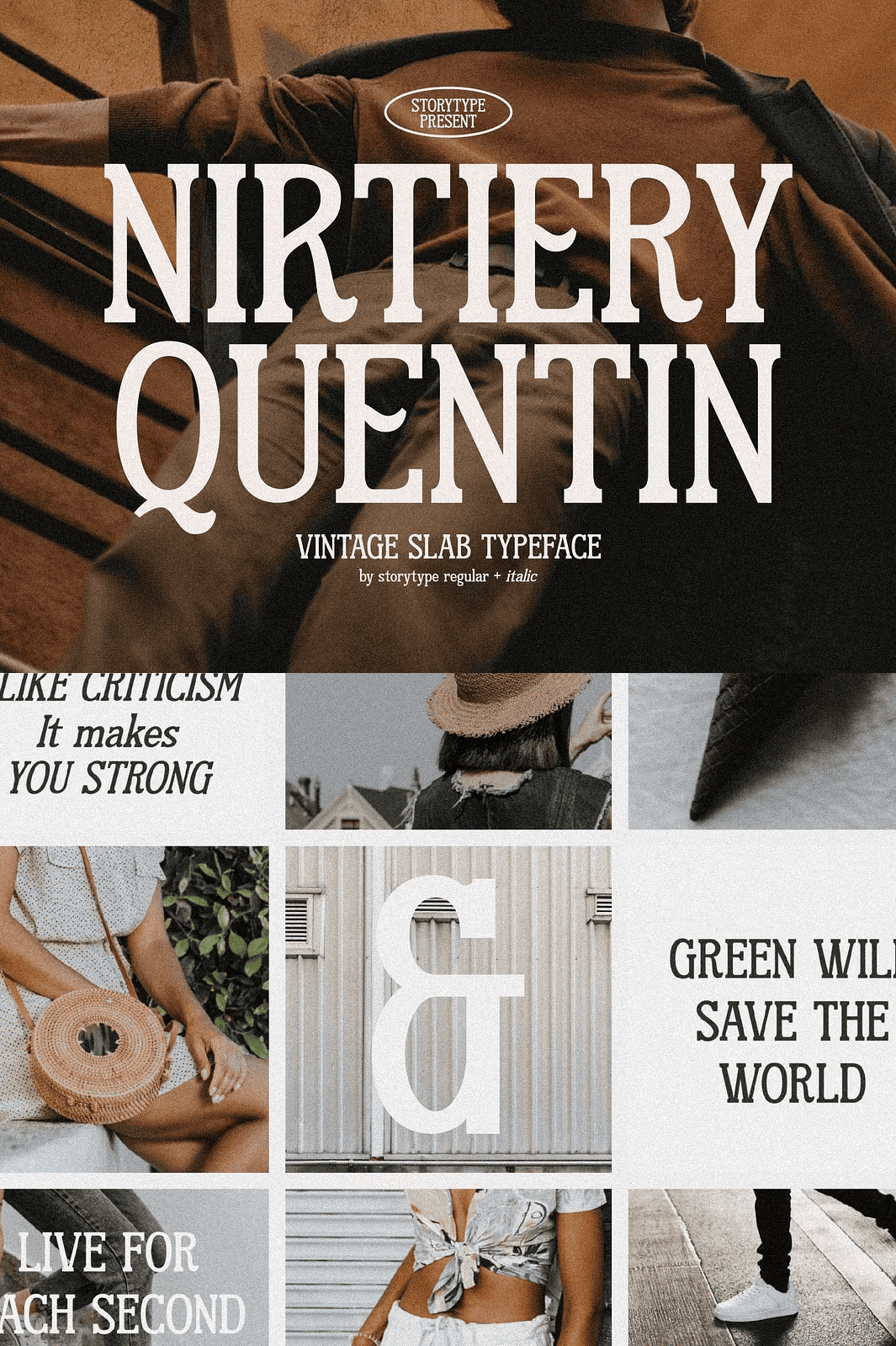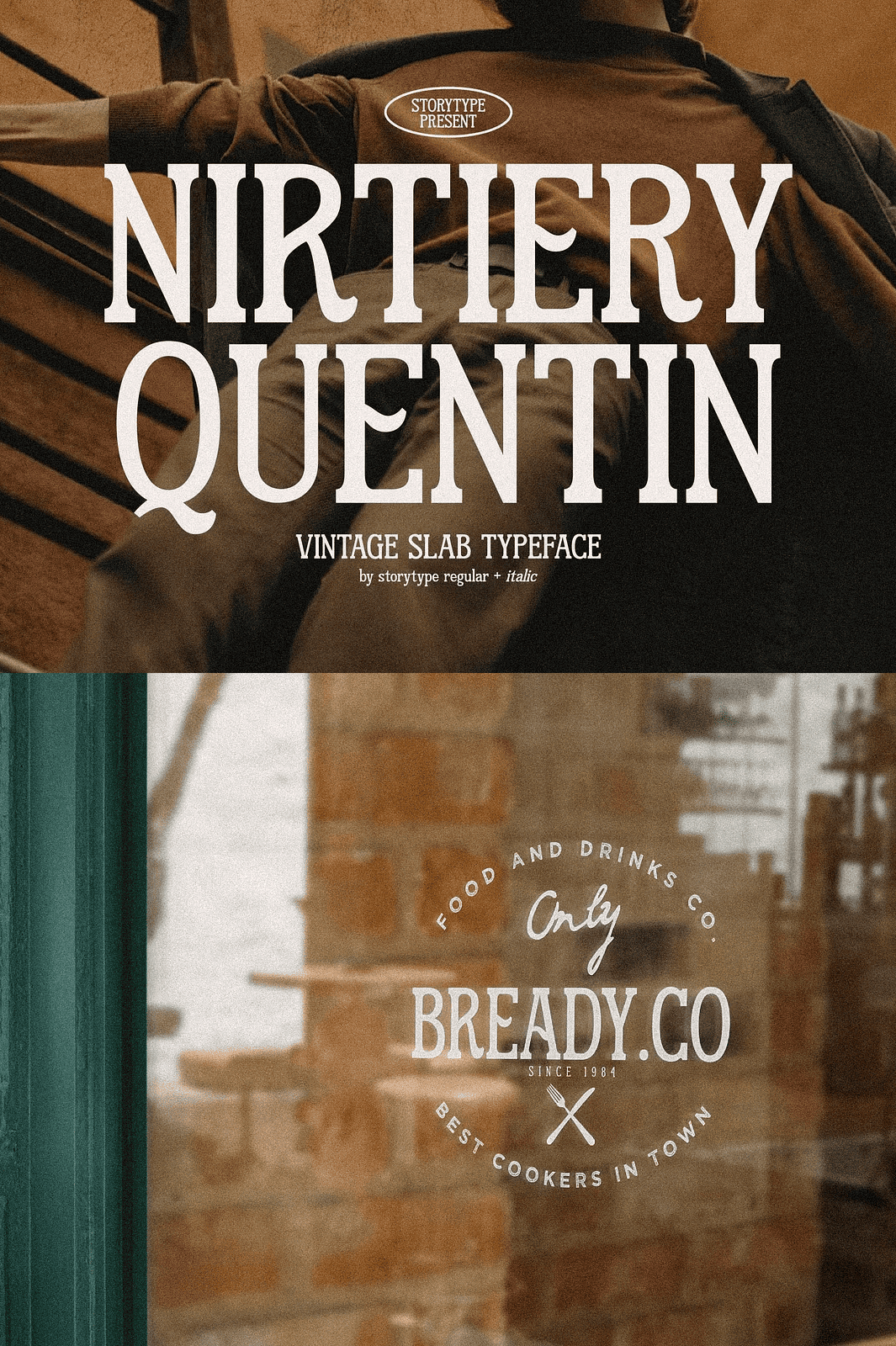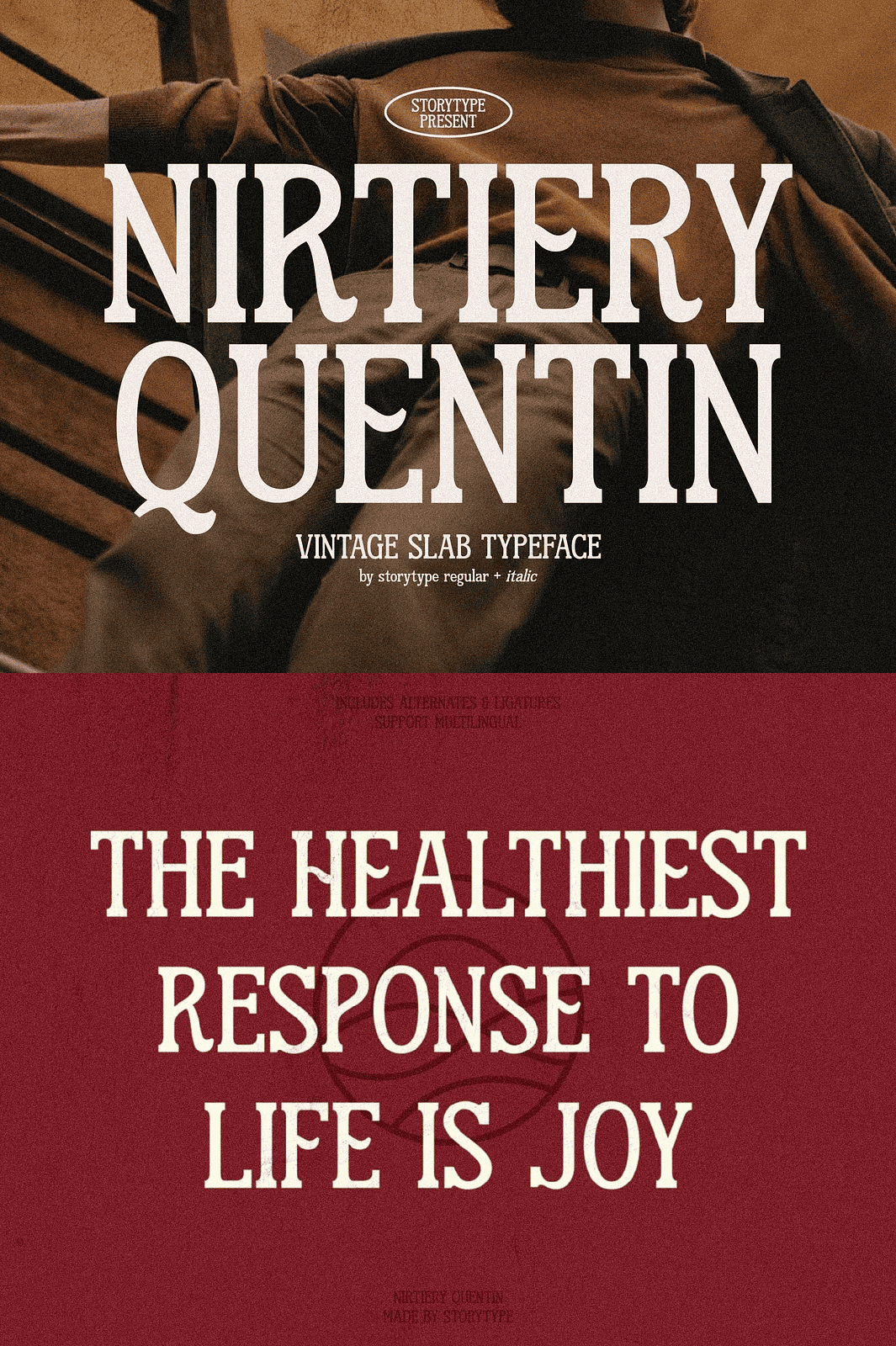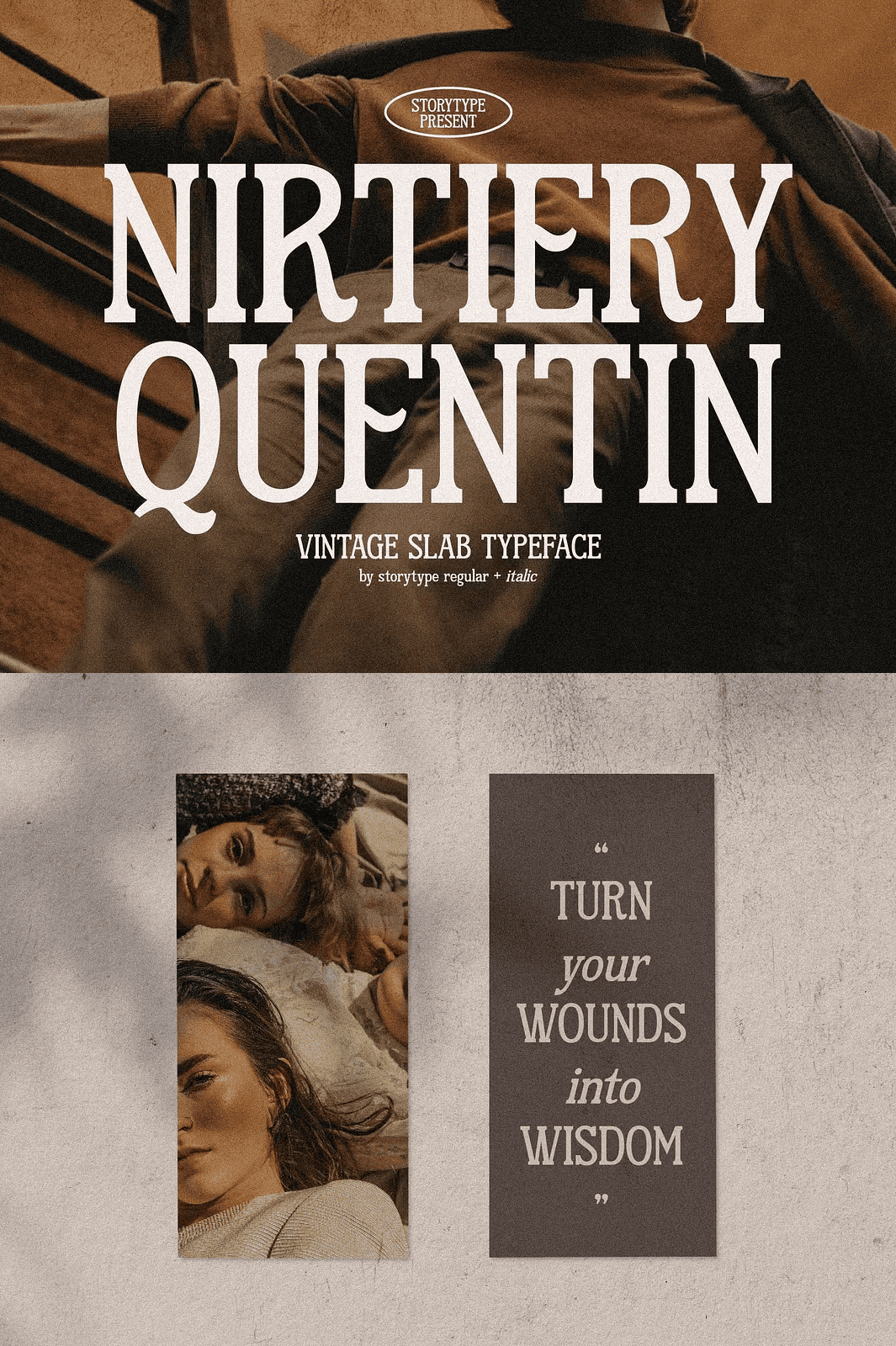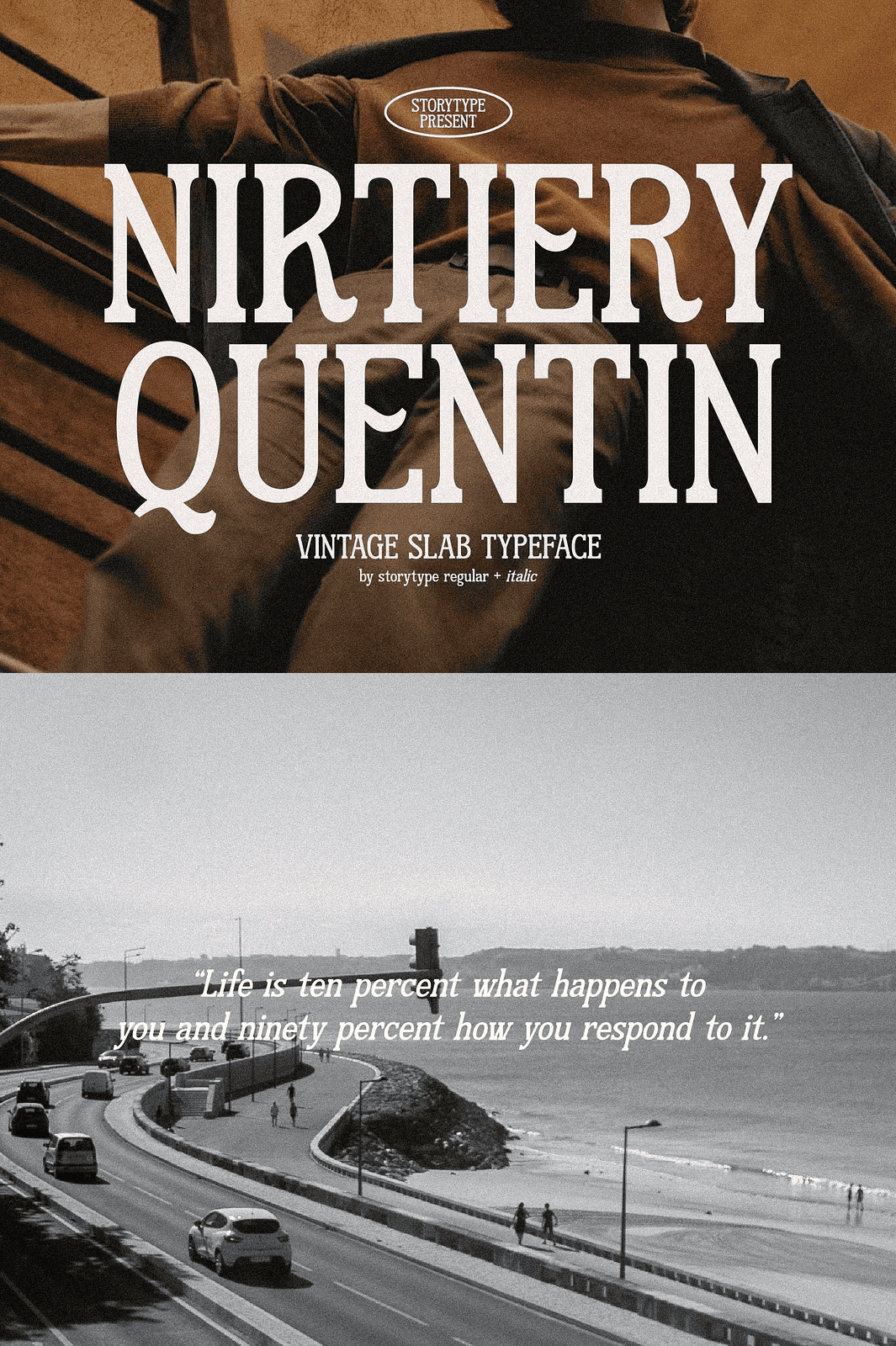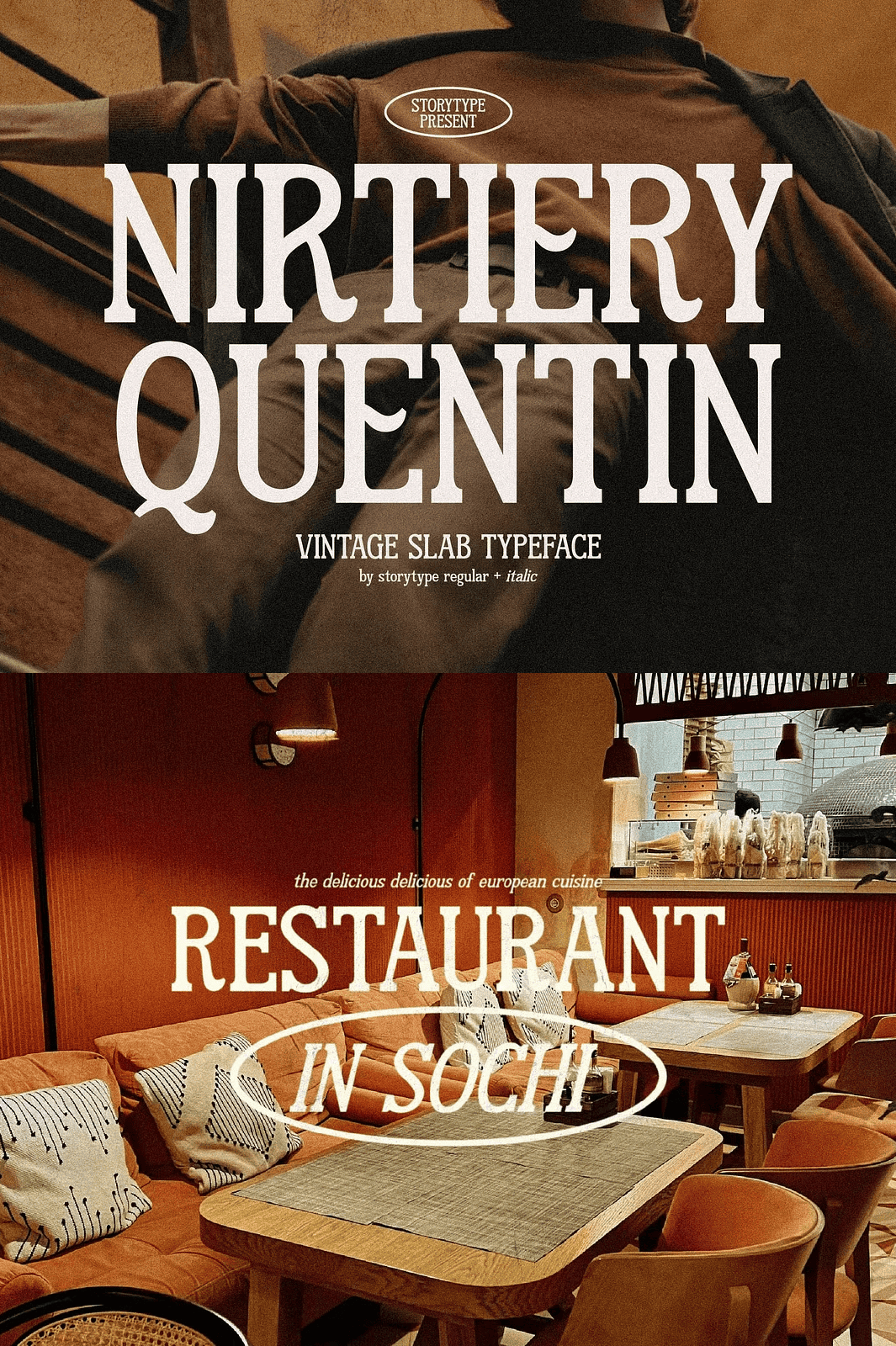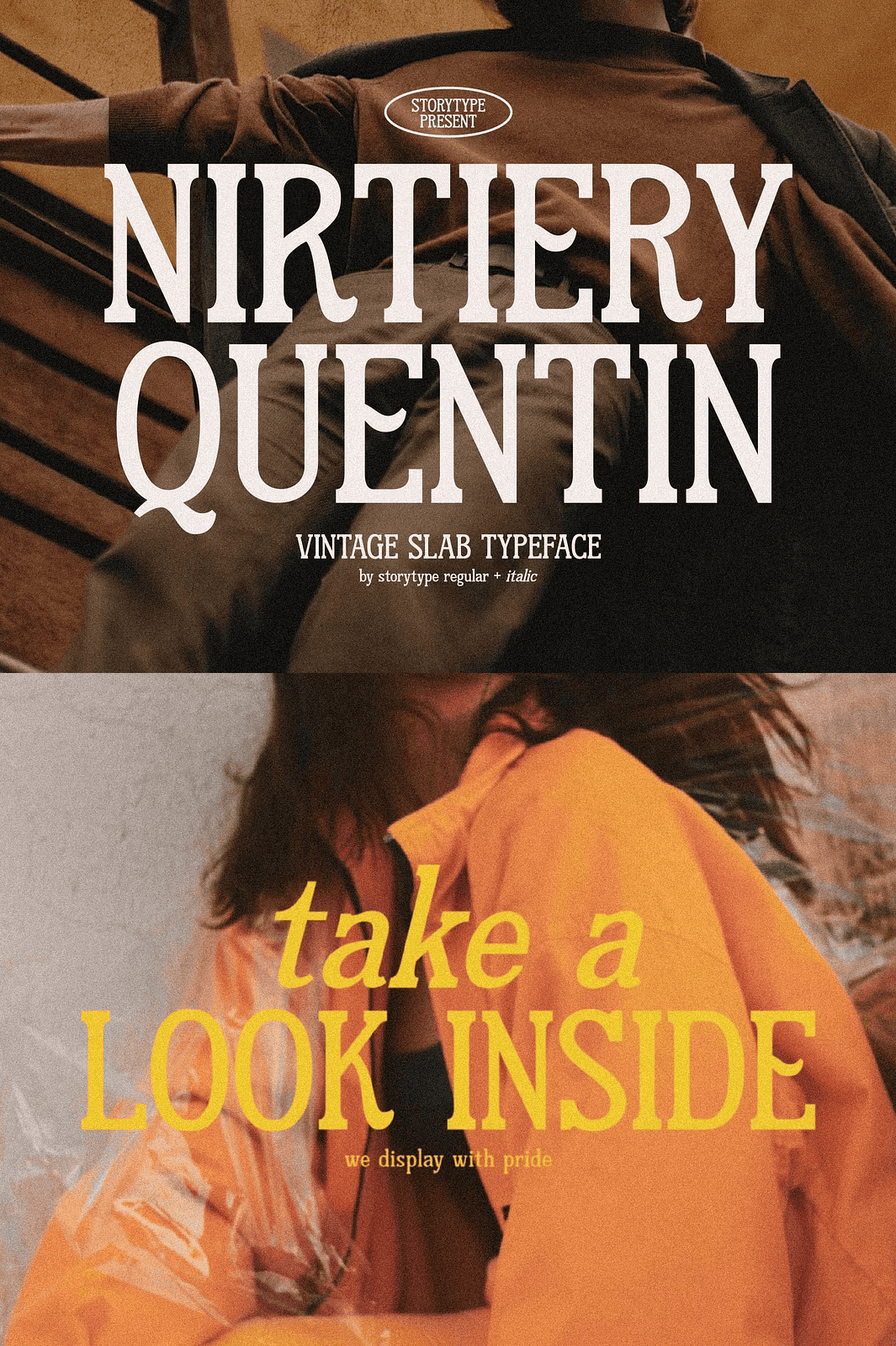
Nirtiery Quentin Vintage Slab Font
Command Attention with a Typeface Built for Luxury and Impact
Step into the world of refined sophistication with **Nirtiery Quentin Typeface**, a striking modern serif font crafted by Storytype for designers who demand distinction. This is not just a font—it’s a design statement. With its bold yet balanced structure, sweeping curves, and timeless proportions, Nirtiery Quentin redefines what a modern serif can be. Every letter is engineered to command presence, making it the ultimate choice for projects where elegance, clarity, and visual power are non-negotiable.
Engineered for Excellence in High-End Creative Projects
Nirtiery Quentin is more than a visual choice—it’s a strategic tool. Designed for luxury logos, fashion branding, editorial covers, movie titles, and premium product packaging, this typeface brings an immediate sense of prestige. Its sharp serifs, generous x-height, and harmonious spacing create a polished finish that speaks volumes. Whether you’re working on a couture label, a literary masterpiece, or a cinematic poster, Nirtiery Quentin delivers the authority and refinement that elevates your entire composition.
Rich Feature Set for Maximum Design Freedom
This typeface is packed with professional-grade tools to fuel your creativity:
– **Uppercase and Lowercase letters** with consistent proportions
– **Standard and discretionary ligatures** for smooth, professional typographic flow
– **Extensive multilingual character support**, including accented letters for European and international languages
– **OpenType Stylistic Sets** and **alternate glyphs** to customize your message with subtle variations
– **True numerals and punctuation** for seamless integration into any layout
With over **1,000 glyphs**, Nirtiery Quentin offers exceptional versatility. Use it to design everything from minimalist branding to ornate typographic art, all while maintaining readability and impact.
Designed for Visionaries, Perfected for the Market
Nirtiery Quentin is built not just to look good—but to stand out in a competitive world.